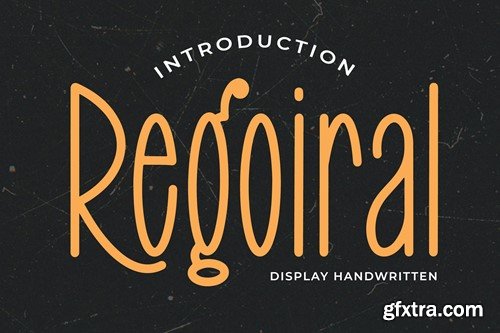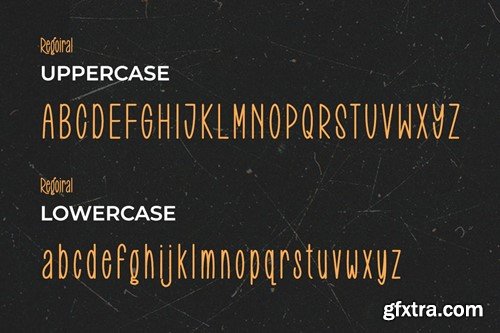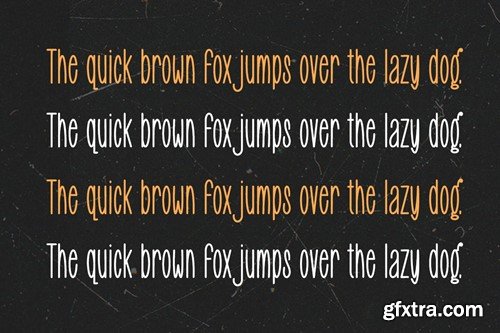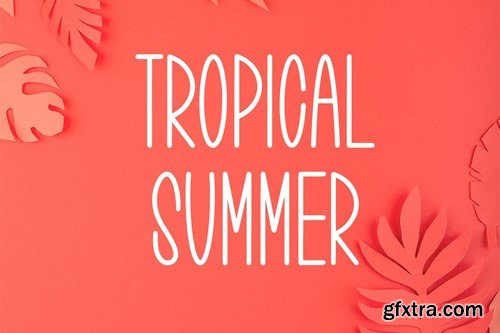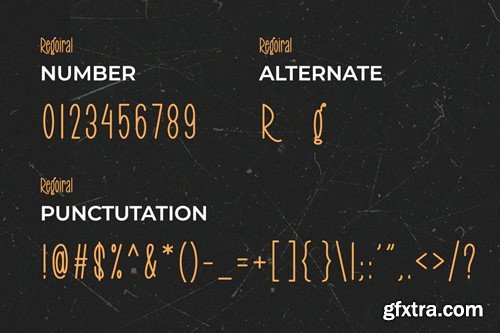
Regoiral - 显示手写字体 YR9GD2J
Regoiral - Display Handwritten Font
Regoiral is a unique display typeface perfect for titles, large text, branding, logotypes & graphic design purposes such as posters, pamphlets, and advertisements. This letter font can be a great choice for creating amazing logos, promotional content, and marketing presentations that can bring uniqueness and freshness at its best. FEATURES TTF/OTF/WOFF Uppercase and Lowercase letters Numbering and Punctuations Alternate Support Adobe Illustrator, Adobe Photoshop, Adobe InDesign, also works on Microsoft Word For buyers, thank you for using our font. We hope our work can help you create creative ideas.